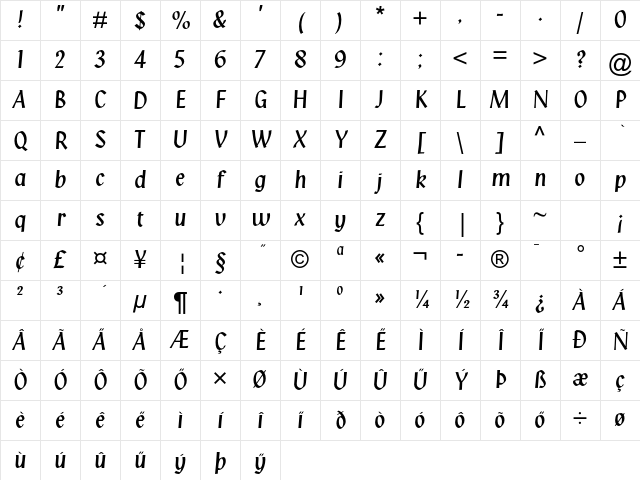
Klang MT Std Regular
Designer: Will Carter
Complete Klang MT Std Regular glyph index. Displaying only characters natively supported by Klang MT Std Regular font.
Design Context for Klang MT Std
Klang MT Std is a composed and adaptable typeface that performs quietly and consistently across a wide range of design contexts.